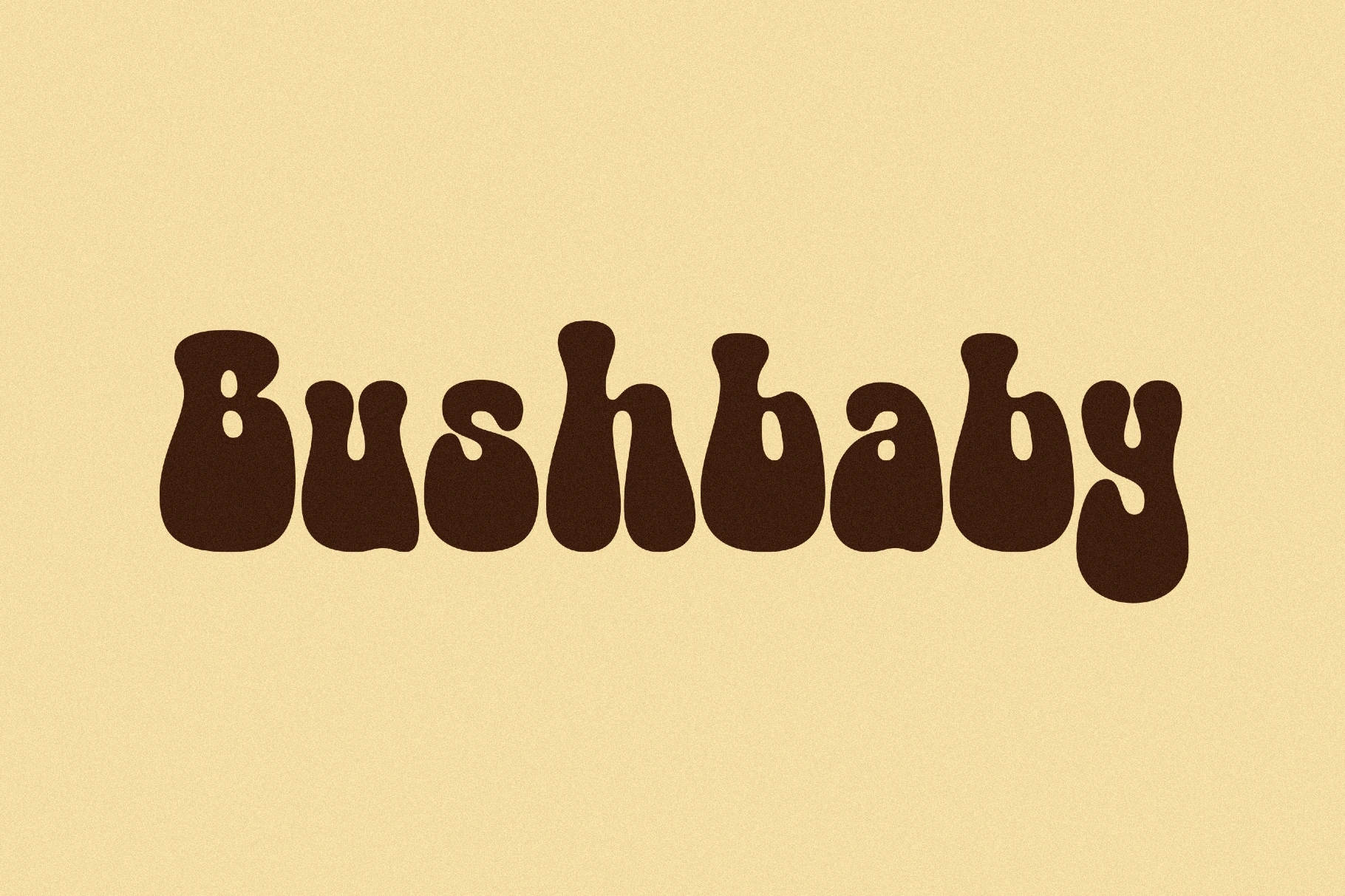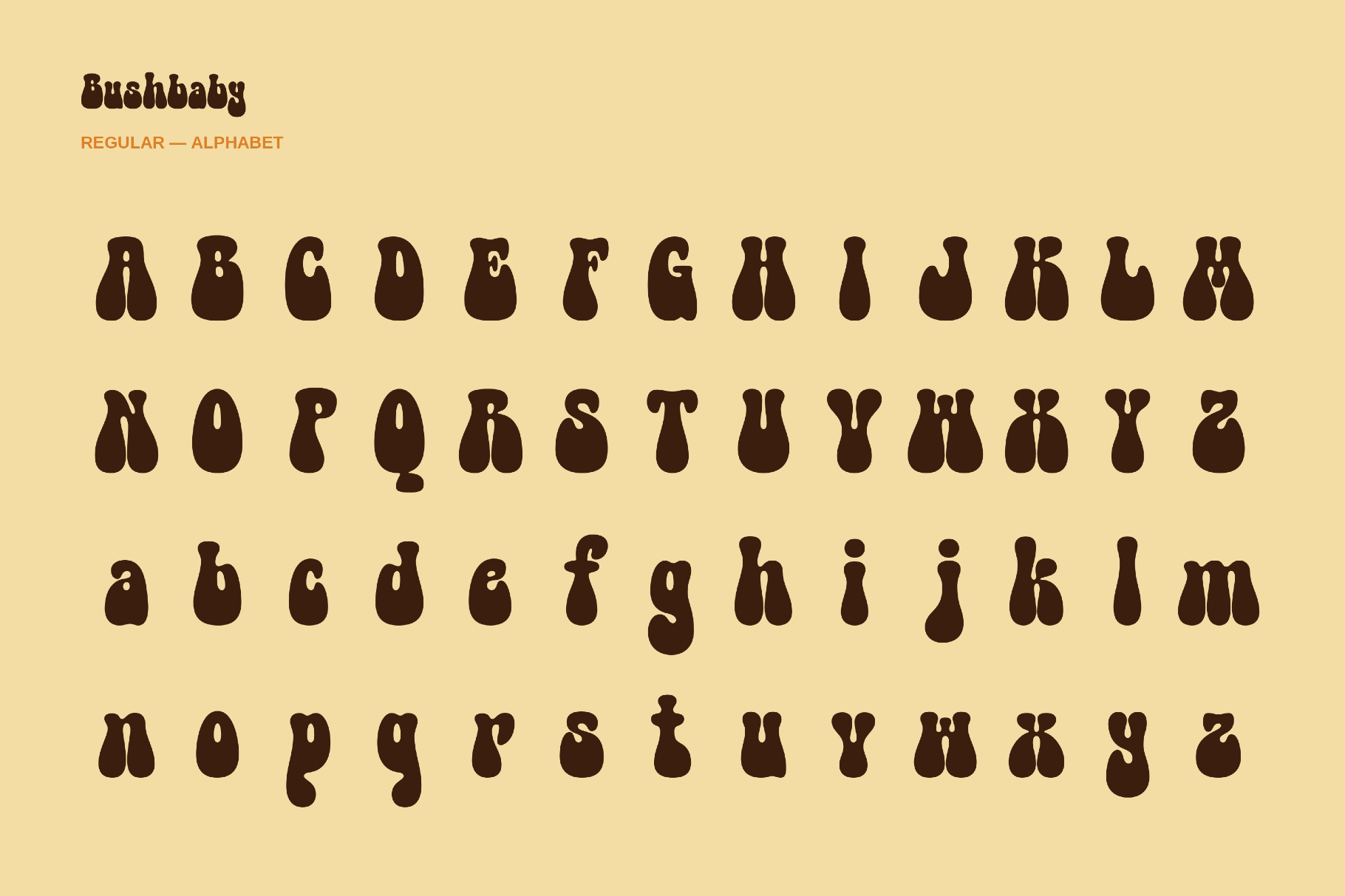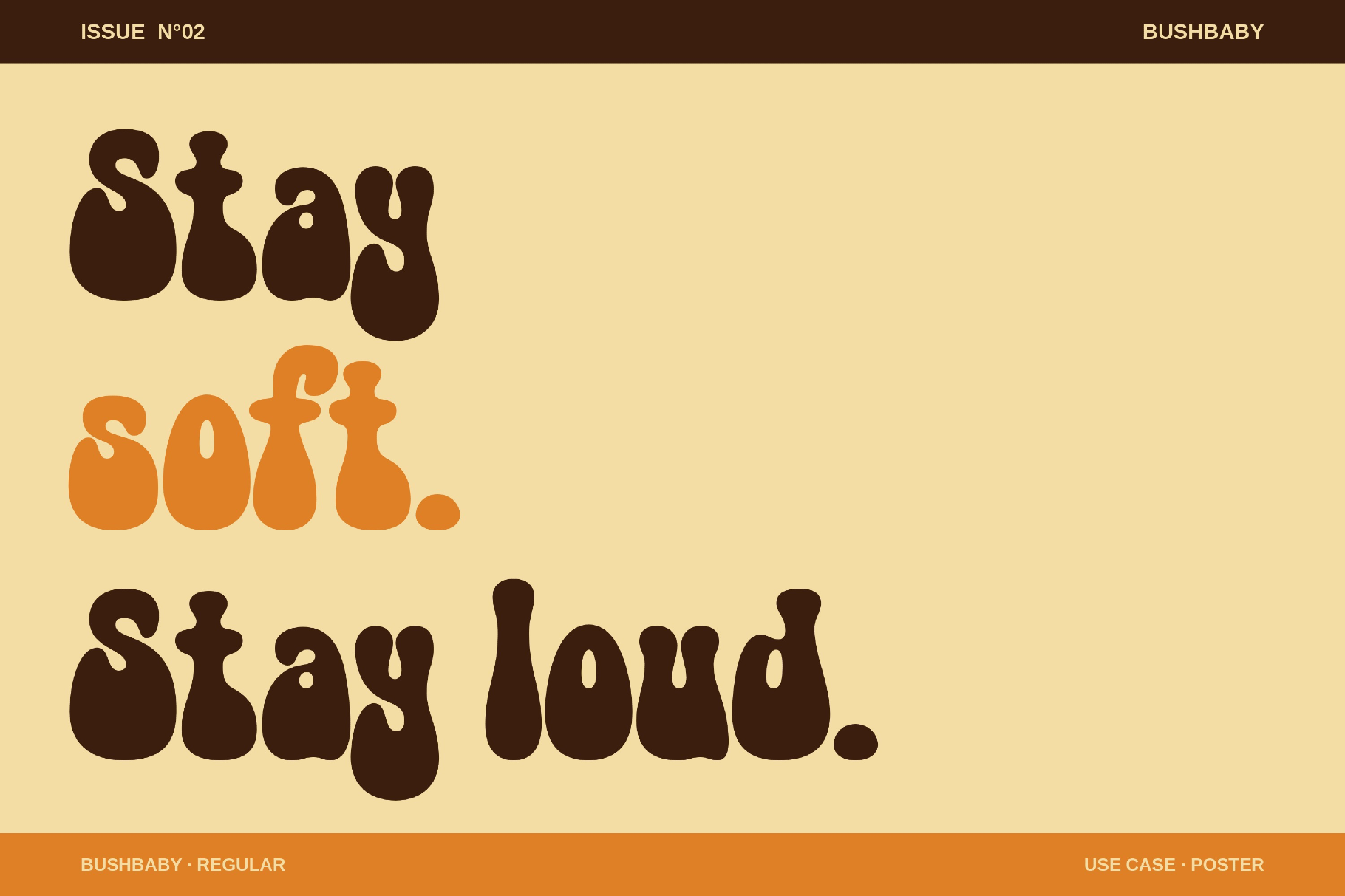
Bushbaby - 70s Groovy Font
Bushbaby is developed by Ivan Vorontsov at HSE ART AND DESIGN SCHOOL. This groovy bubble font stands out with loose, cartoon lettering, soft, irregular shapes, and a hand-drawn rhythm. Its rounded forms recall children’s books, retro toy packaging, and hand-painted preschool posters.
It works well for kids’ branding, animal-themed posters, storybook covers, sticker packs, party invitations, educational materials, toy labels, classroom graphics, activity books, playful merch, and social media visuals.